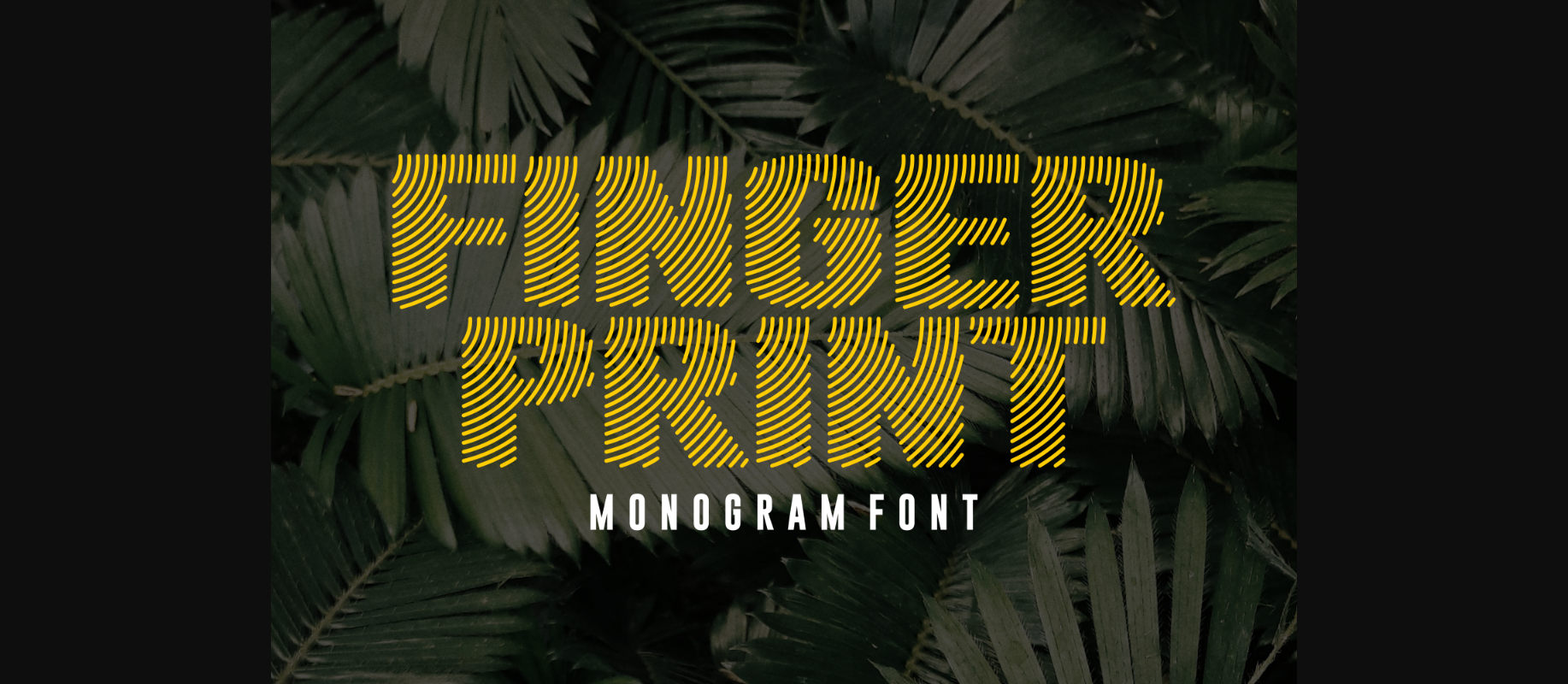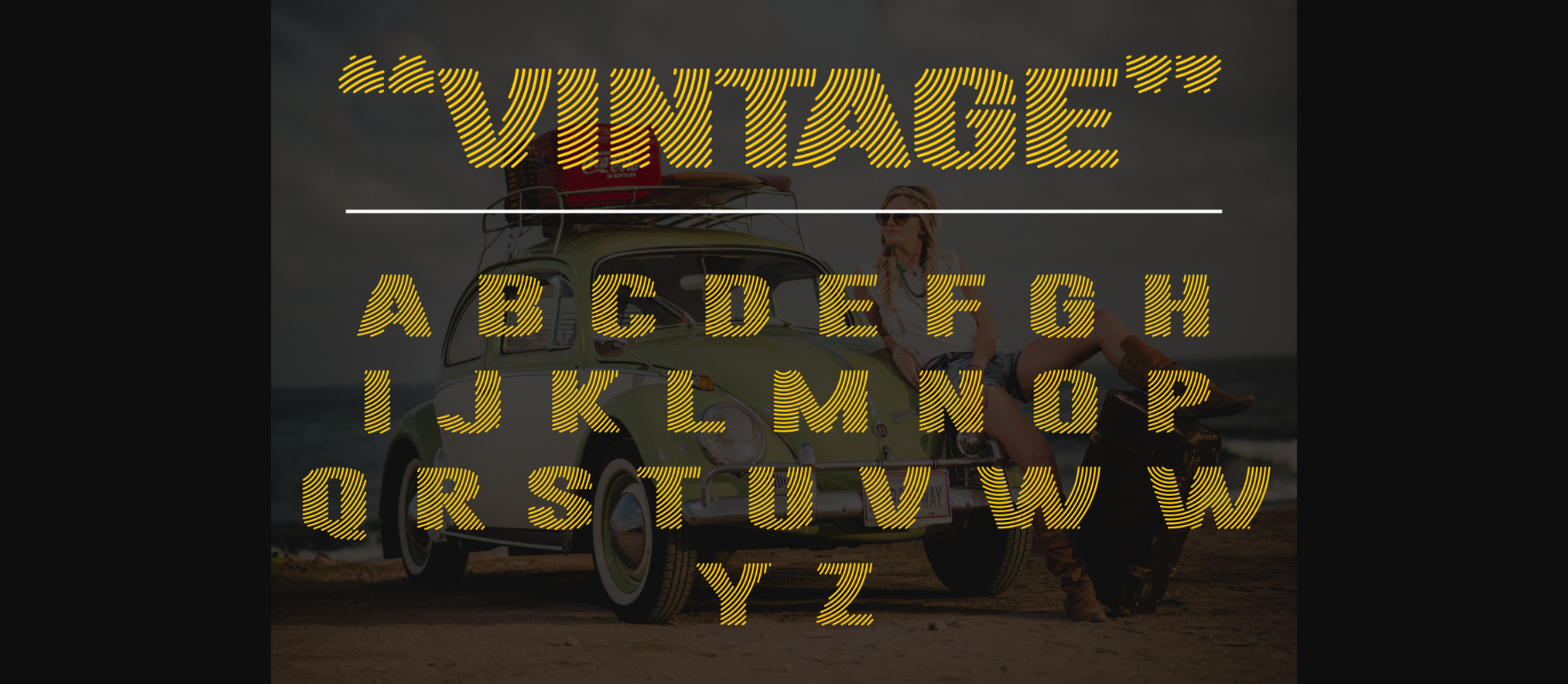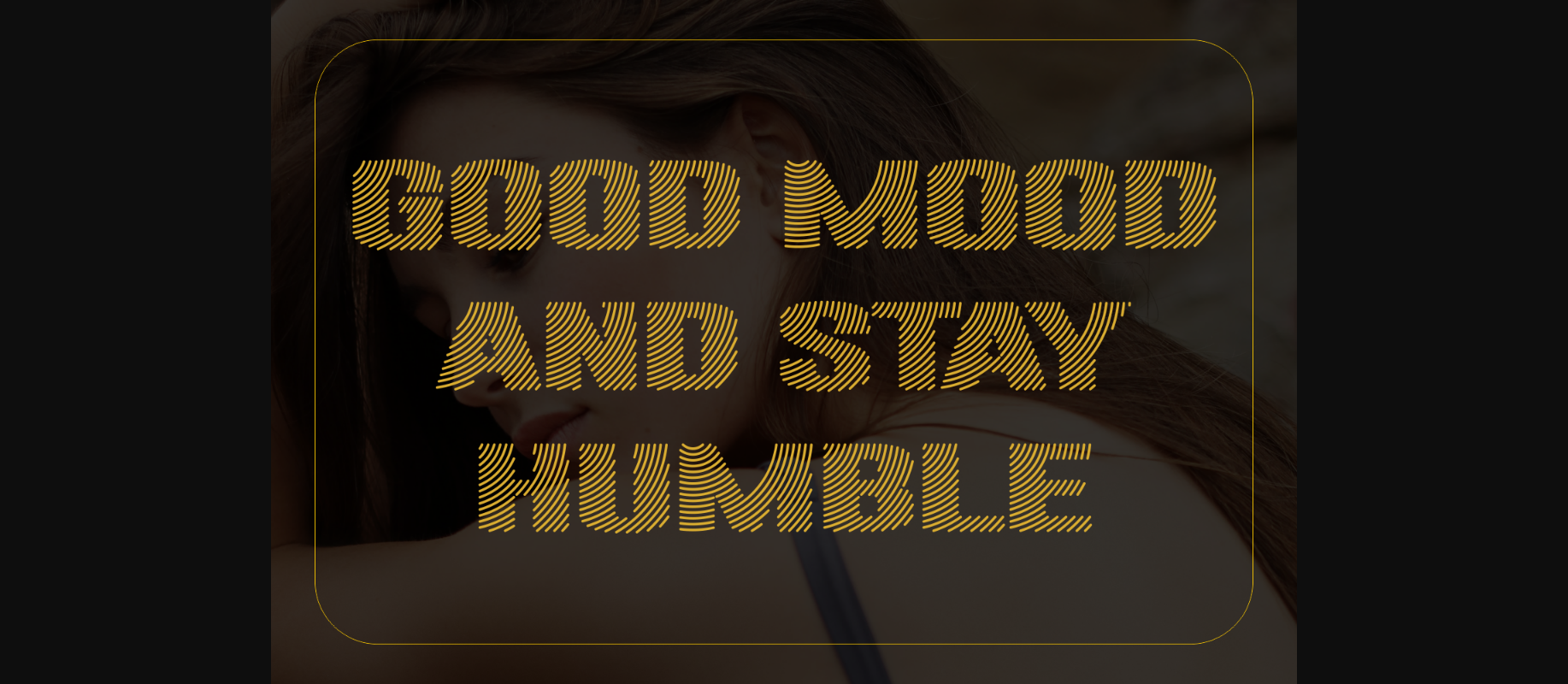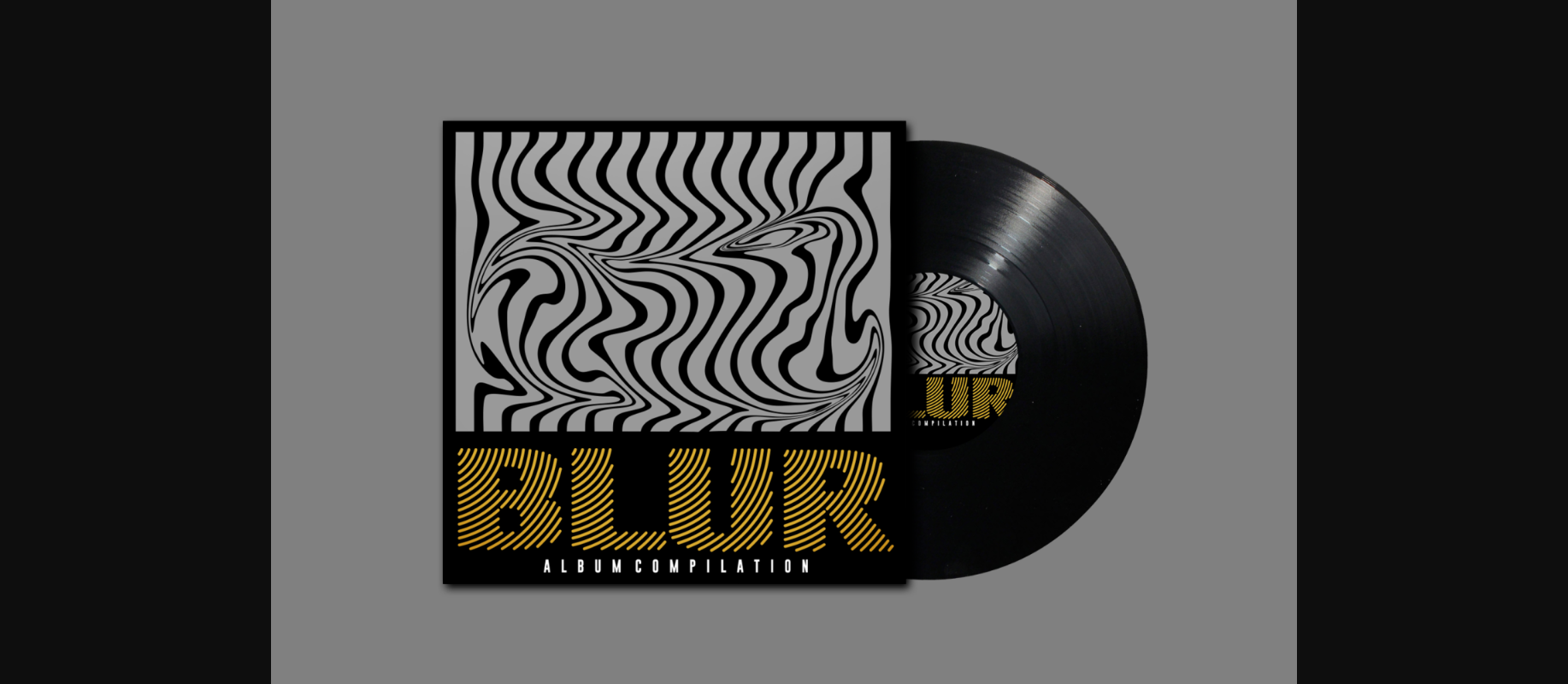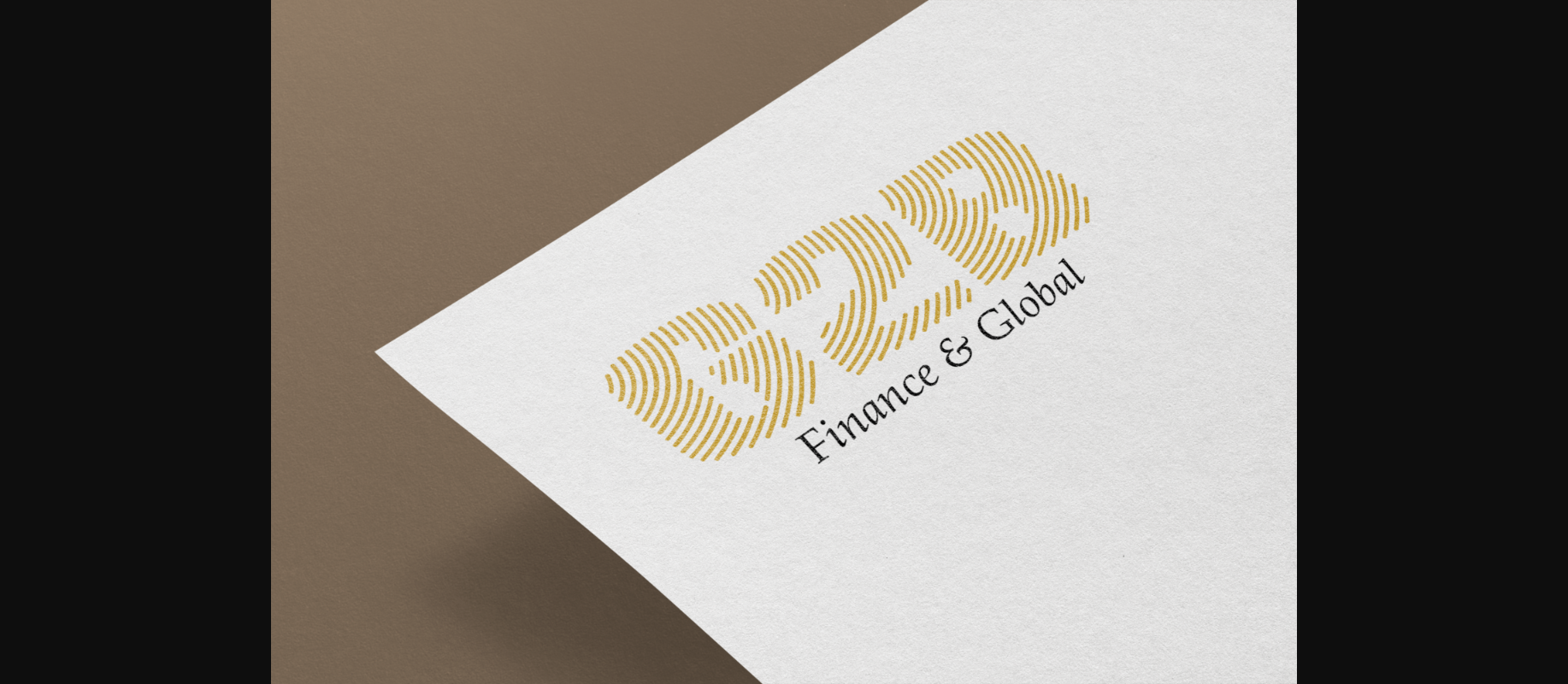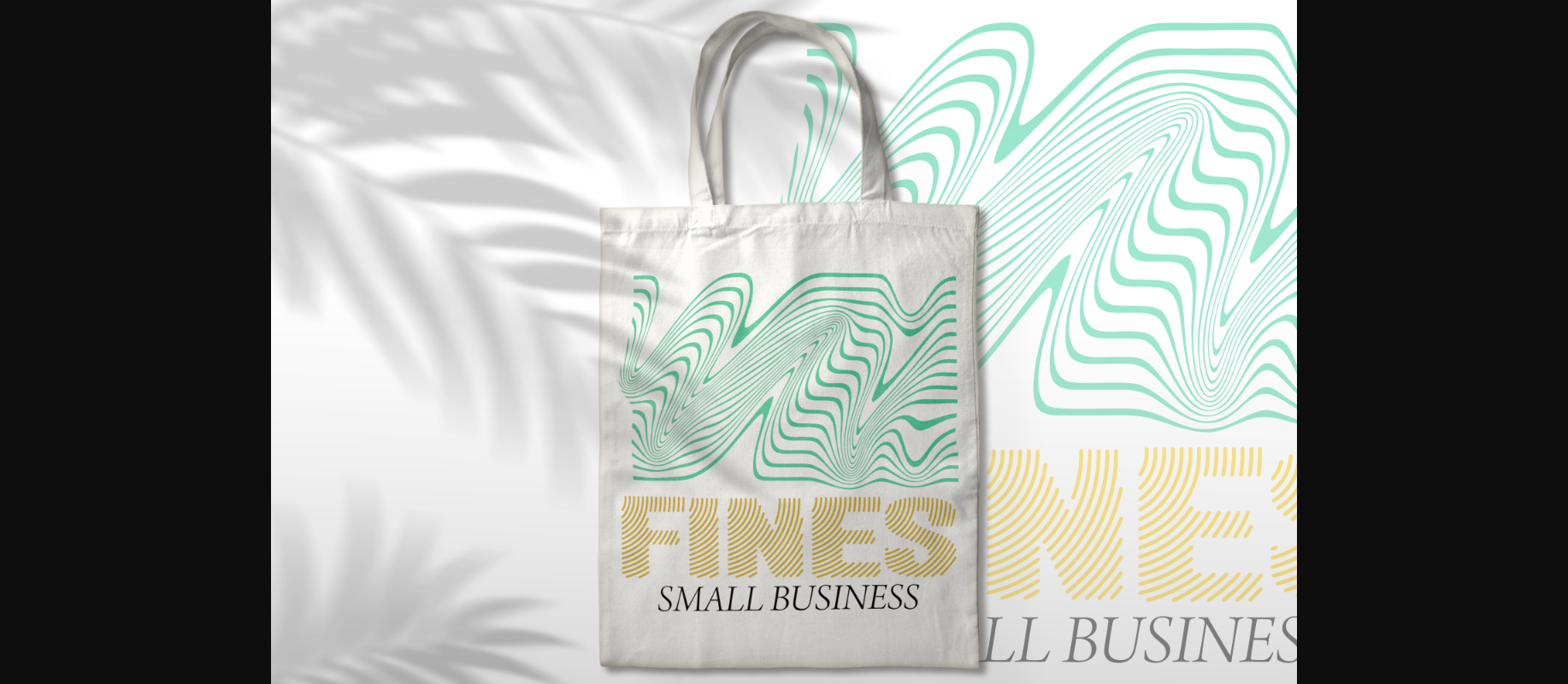
Finger Print Font
About Finger Print Font
Finger Print is a decorative font with fingerprints on letters. Each letter in this font is adorned with fingerprints, creating a distinctive and organic appearance.
It sparks curiosity and invites interpretation, as fingerprints are often associated with identity, individuality, and human touch.
This font can be used in various applications, including book covers, album artwork, event invitations, or branding materials for individuals or organizations seeking a distinct and memorable visual identity.